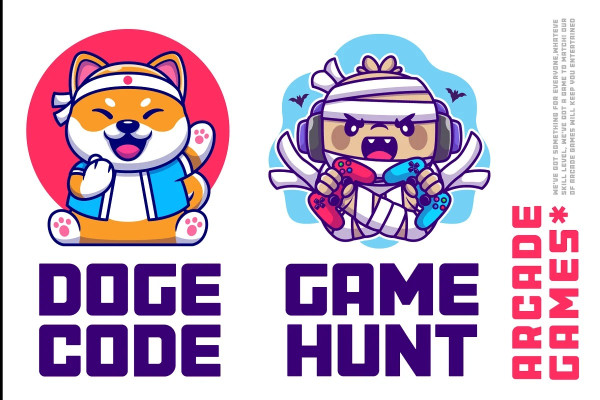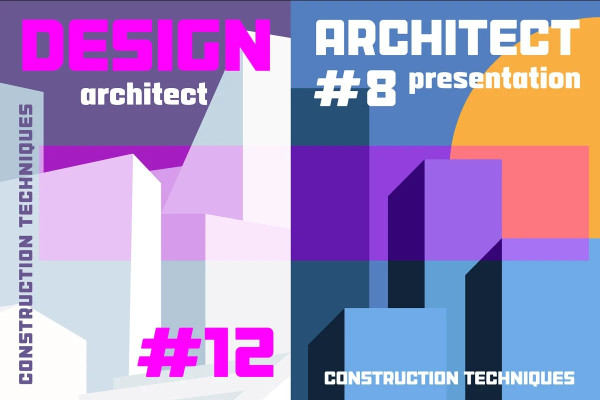
Anface Font
Anface Font is a bold, square font with a playful, creative letters. This font is unique because of its bold and strong letterforms that evoke a feeling of confidence and strength. The square shapes add a modern, geometric element that gives it a cool and contemporary look.
In terms of functionality, Anface offers a range of styles, including regular and bold, as well as a full character set that supports multiple languages. Its special features include a full range of punctuation and symbols, making it a versatile choice for a variety of design projects.
The design concept behind Anface was to create a font that was both bold and playful, making it perfect for a variety of creative projects: headlines, logos, and other design elements that required a strong and confident visual impact. Its unique square shape and bold letterforms make it a fresh and exciting addition to any designer’s toolkit.
Here are a few ideas for where Anface could be used:
Tech companies: The geometric design of Anface could be a good fit for technology or software companies, as it has a modern and futuristic feel. Sports teams: The bold, strong letterforms of Anface could be used for sports team logos, jerseys, and other branding materials. Its square shape gives it a sporty and athletic look. Architecture firms: The clean, modern lines of Anface make it a great choice for architecture firms or any businesses related to construction or design. Art and design studios: Anface’s playful, creative design would be well-suited for art and design studios, or any business related to the creative industries. Music industry: Anface’s bold, attention-grabbing design could be used for music album covers, posters, or other promotional materials. Cafes and restaurants: Anface’s square shape and bold design could be a good fit for cafes or restaurants that want to create a modern and unique brand identity. Its playful and creative look could help businesses stand out and create a unique visual identity.